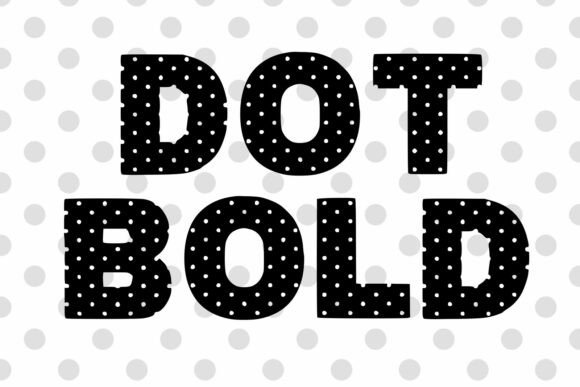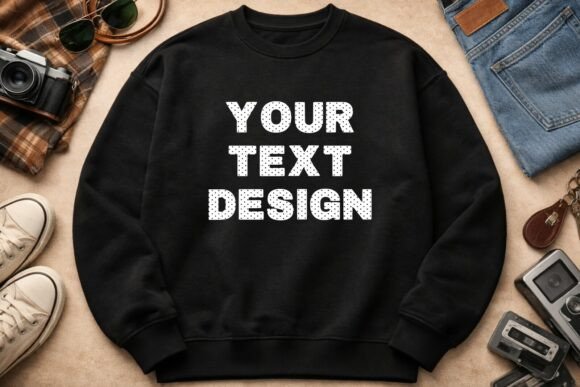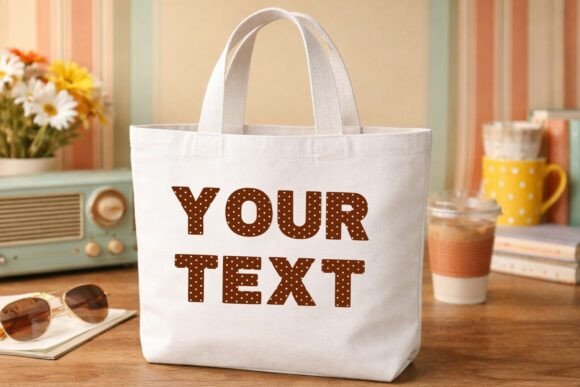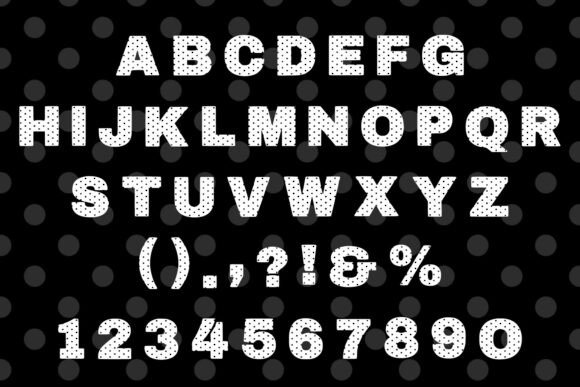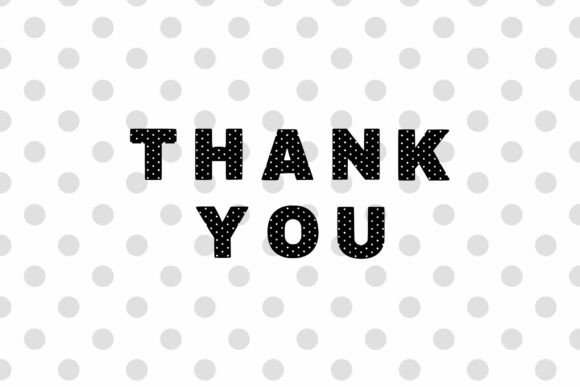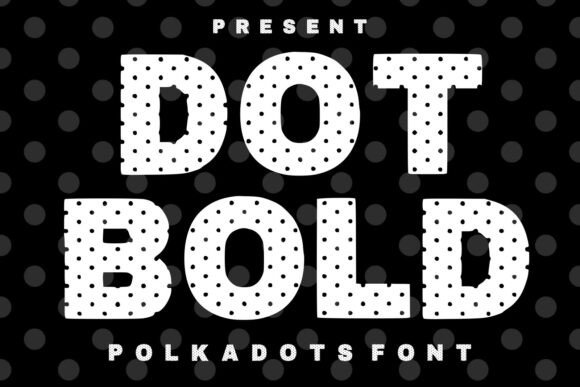
Introducing Dot Bold Font: The Ultimate Polka Dots Display Font for Creative Projects
Are you looking for a font that can add a touch of fun and personality to your creative projects? Look no further than Dot Bold Font, a playful and eye-catching polka dots display font designed to bring joy and excitement to your designs. With its bold letterforms decorated with playful dotted details, Dot Bold Font is perfect for a wide range of applications, from posters and kids’ designs to party invitations, branding, packaging, social media graphics, and cheerful typography.
The Unique Features of Dot Bold Font
Dot Bold Font is a one-of-a-kind font that boasts a unique and lively style, making any headline stand out with a friendly, modern vibe. Its bold letterforms are carefully crafted to grab attention, while the playful dotted details add a touch of whimsy and fun. The font’s design is perfect for creating eye-catching graphics that appeal to a wide range of audiences, from children to adults.
Dot Bold Font is an incredibly versatile font that can be used for a variety of creative projects, including:
- Posters: Create eye-catching posters for events, promotions, or announcements that grab attention and leave a lasting impression.
- Kids’ Designs: Add a touch of fun and playfulness to kids’ designs, such as children’s book illustrations, educational materials, or kids’ party invitations.
- Party Invitations: Create festive and fun party invitations that set the tone for a memorable celebration.
- Branding: Use Dot Bold Font to create a unique and recognizable brand identity that stands out from the crowd.
- Packaging: Add a touch of personality to product packaging and make it more appealing to customers.
- Social Media Graphics: Create engaging social media graphics that grab attention and drive engagement.
Why Choose Dot Bold Font?
There are many reasons why Dot Bold Font is an excellent choice for designers and crafters, including:
- Unique and Eye-Catching Design: Dot Bold Font features a one-of-a-kind design that is sure to grab attention and leave a lasting impression.
- Highly Versatile: The font can be used for a wide range of applications, from posters and kids’ designs to branding and social media graphics.
- Easy to Read: Despite its bold and playful design, Dot Bold Font is easy to read, making it perfect for headlines and titles.
- Modern and Friendly Vibe: The font’s design gives off a friendly and modern vibe that appeals to a wide range of audiences.
Tips for Using Dot Bold Font
Here are some tips for getting the most out of Dot Bold Font:
- Use it as a Headline Font: Dot Bold Font is perfect for headlines and titles, where its bold and playful design can really shine.
- Experiment with Colors: The font’s design looks great in a variety of colors, so don’t be afraid to experiment and find the perfect color scheme for your project.
- Pair it with Other Fonts: Dot Bold Font can be paired with other fonts to create a unique and interesting design.
In conclusion, Dot Bold Font is a fun and eye-catching polka dots display font that is perfect for designers and crafters looking to add a touch of personality to their creative projects. With its unique and lively style, highly versatile design, and modern and friendly vibe, Dot Bold Font is an excellent choice for a wide range of applications. Whether you’re creating posters, kids’ designs, party invitations, or social media graphics, Dot Bold Font is sure to bring joy and excitement to your designs.